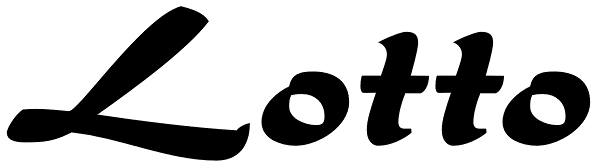
Lotto
Designed by expert ad artist Herbert Thannhaeuser for East German foundry Typoart in 1955, Lotto was until now one of the long lost gems of European sign and brush lettering faces. Unlike in Kurier (Thannhaeuser's other brush face digitized by...